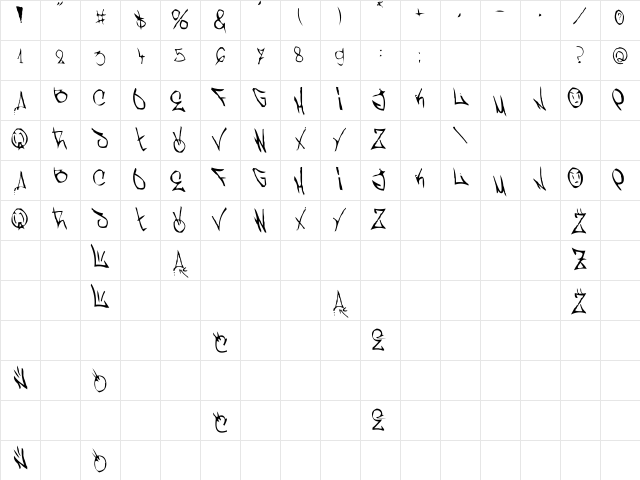
Complete N.A.S Normalny glyph index. Displaying only characters natively supported by N.A.S Normalny font.
N.A.S is a composed and adaptable typeface that performs quietly and consistently across a wide range of design contexts.